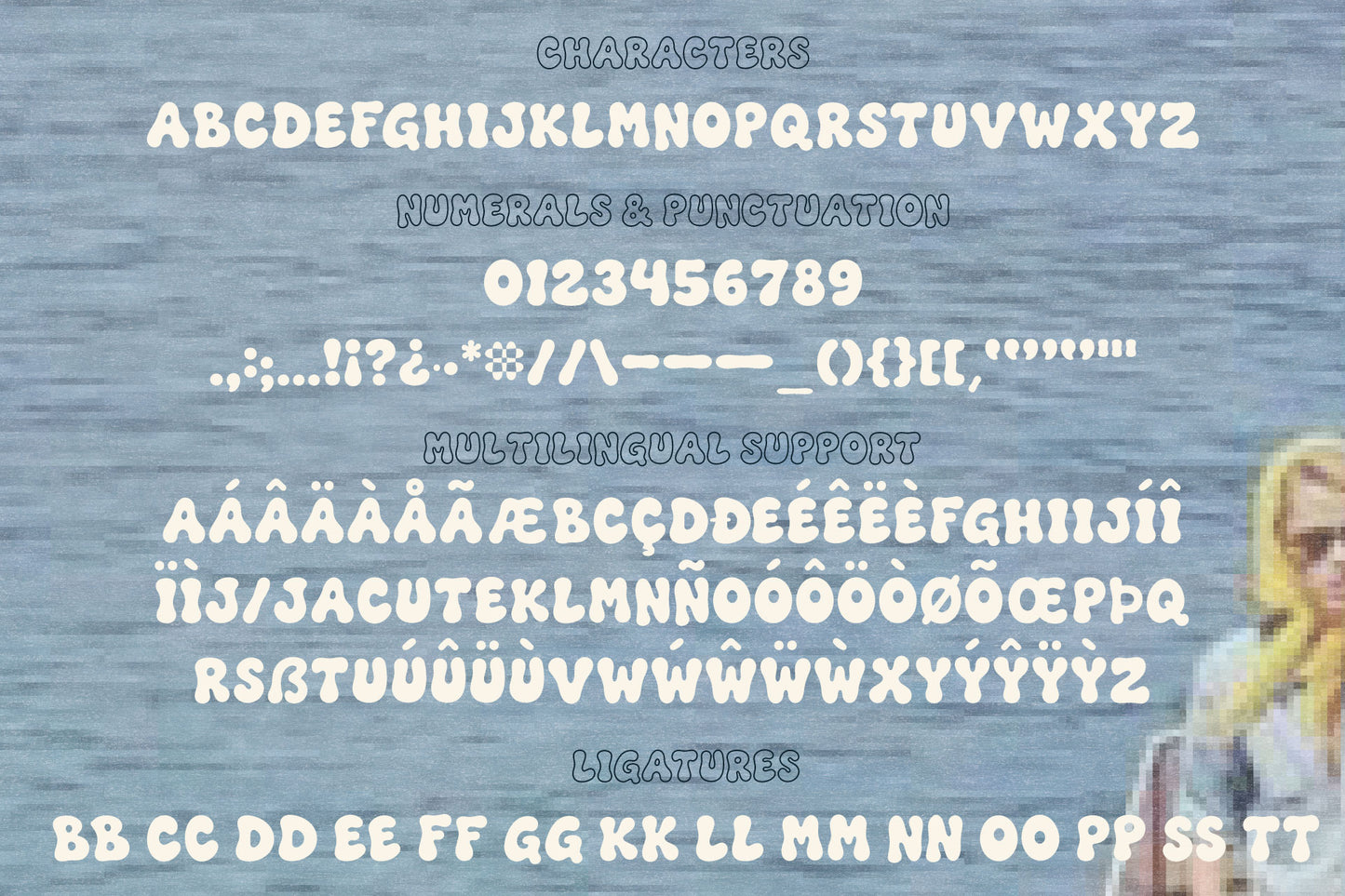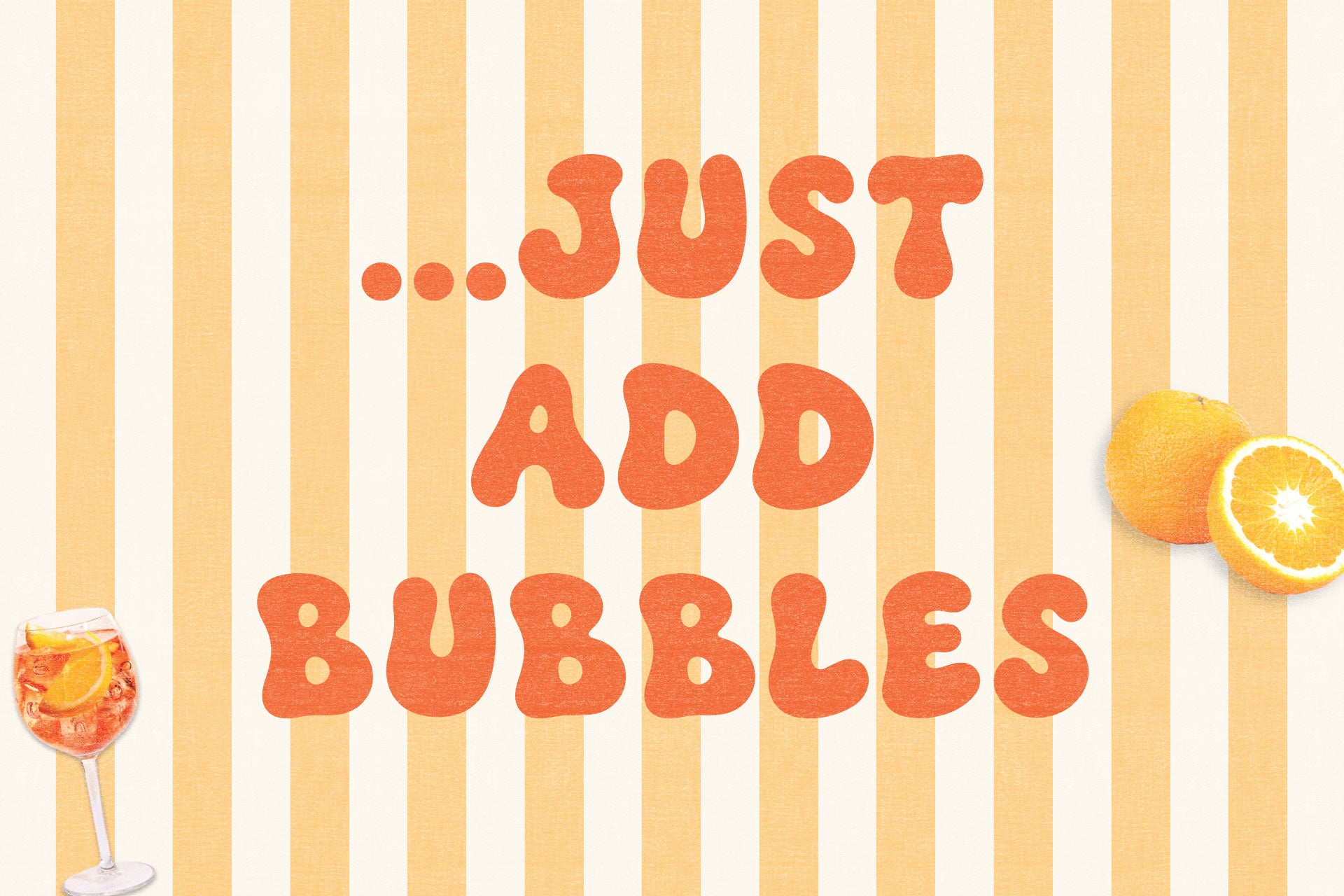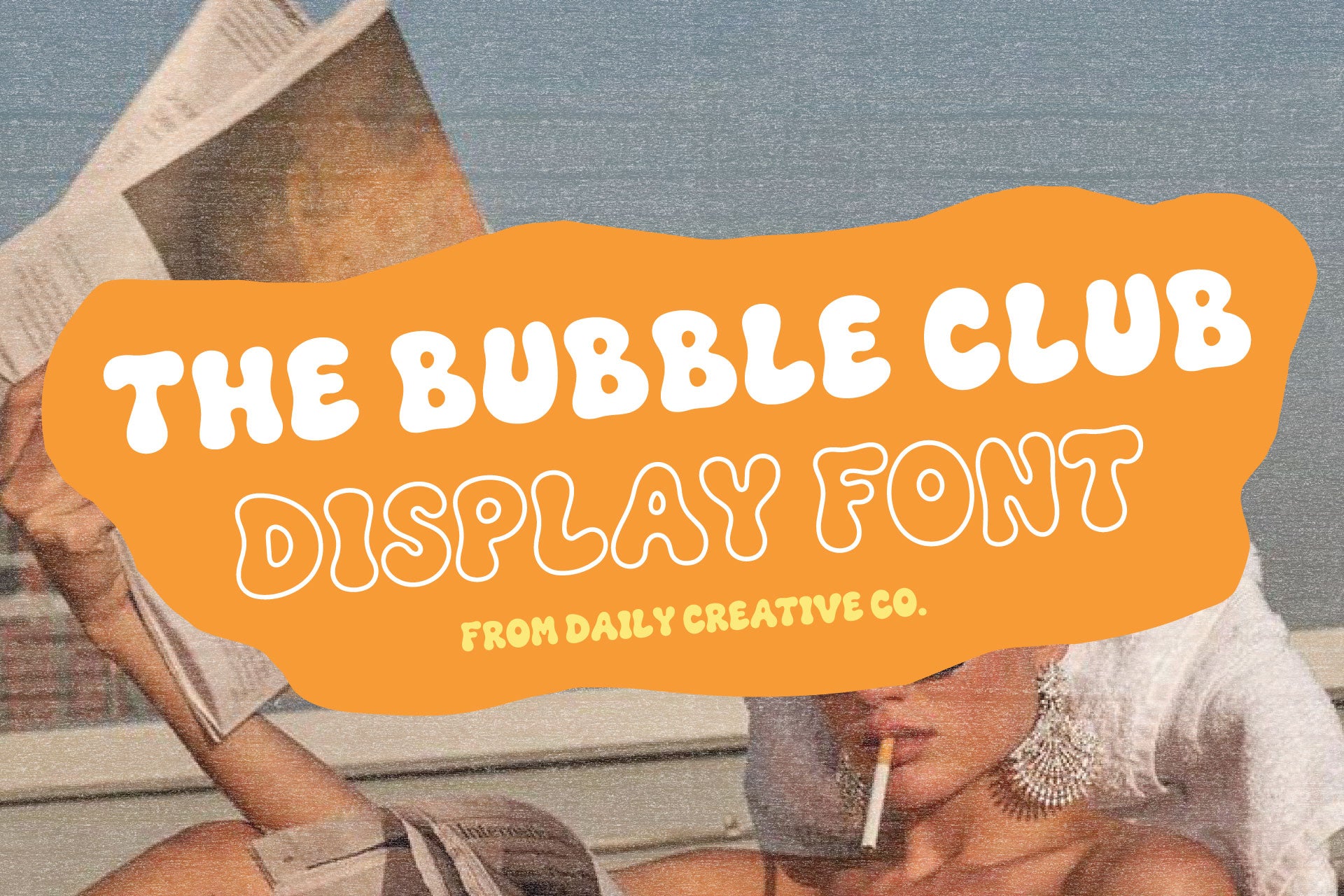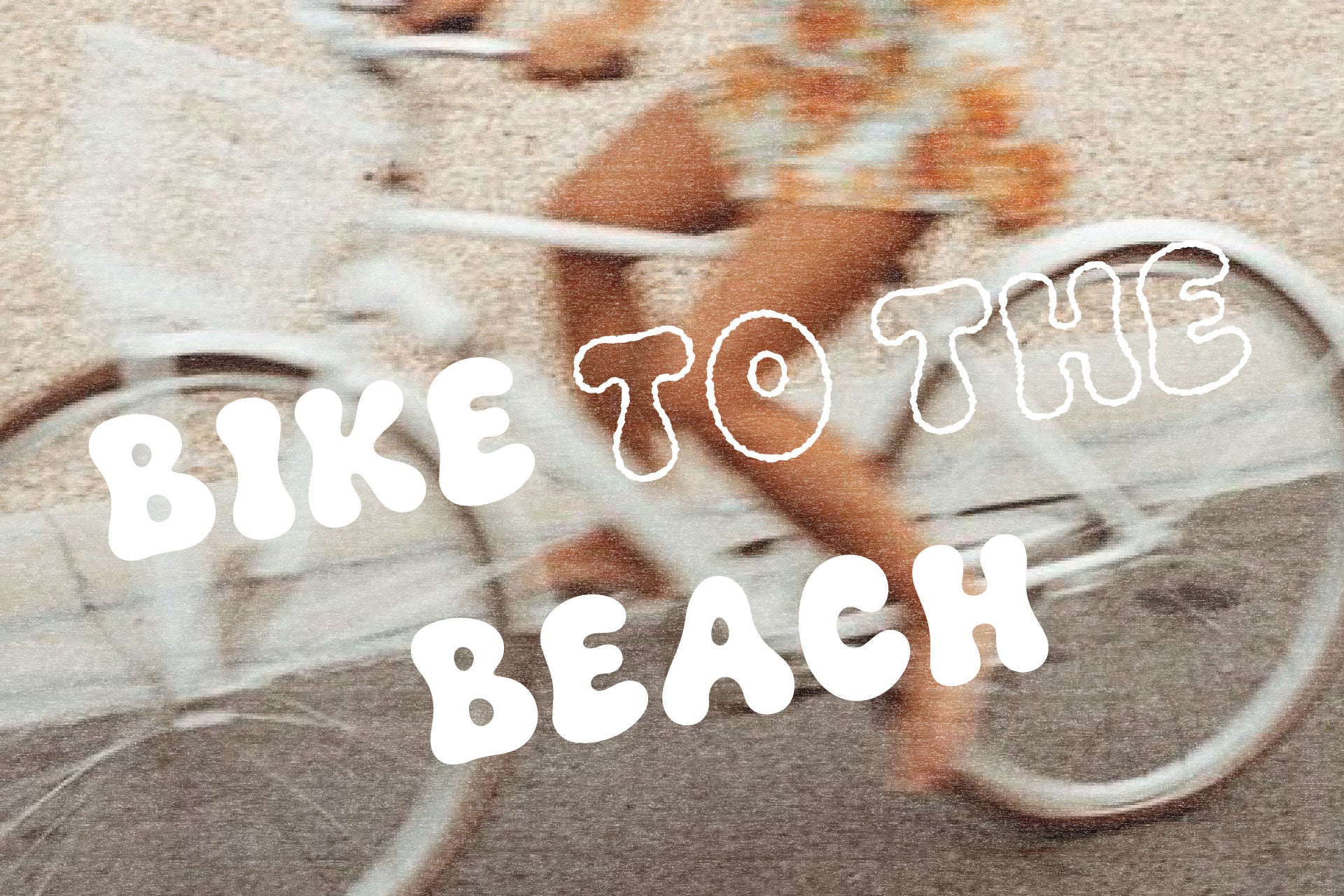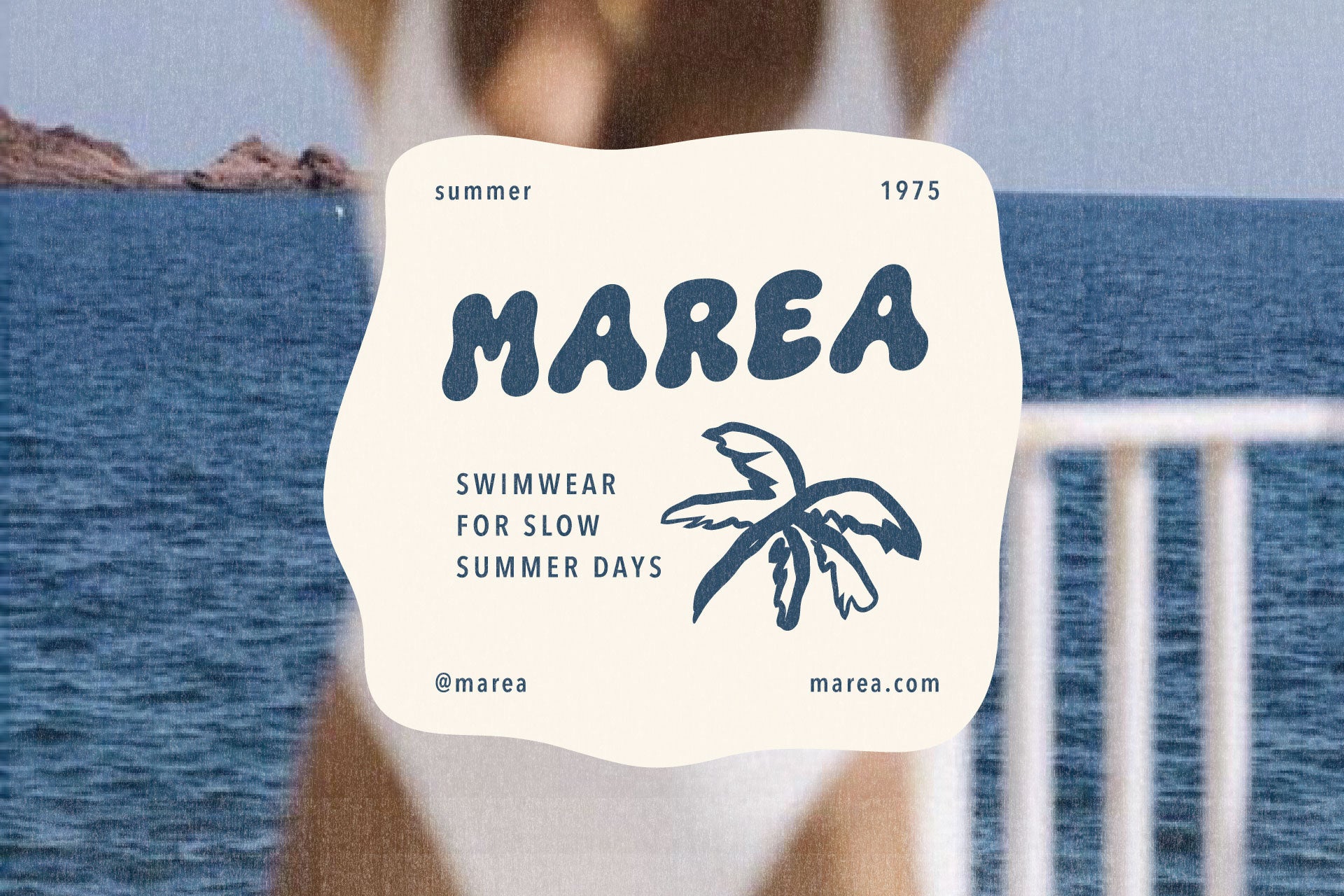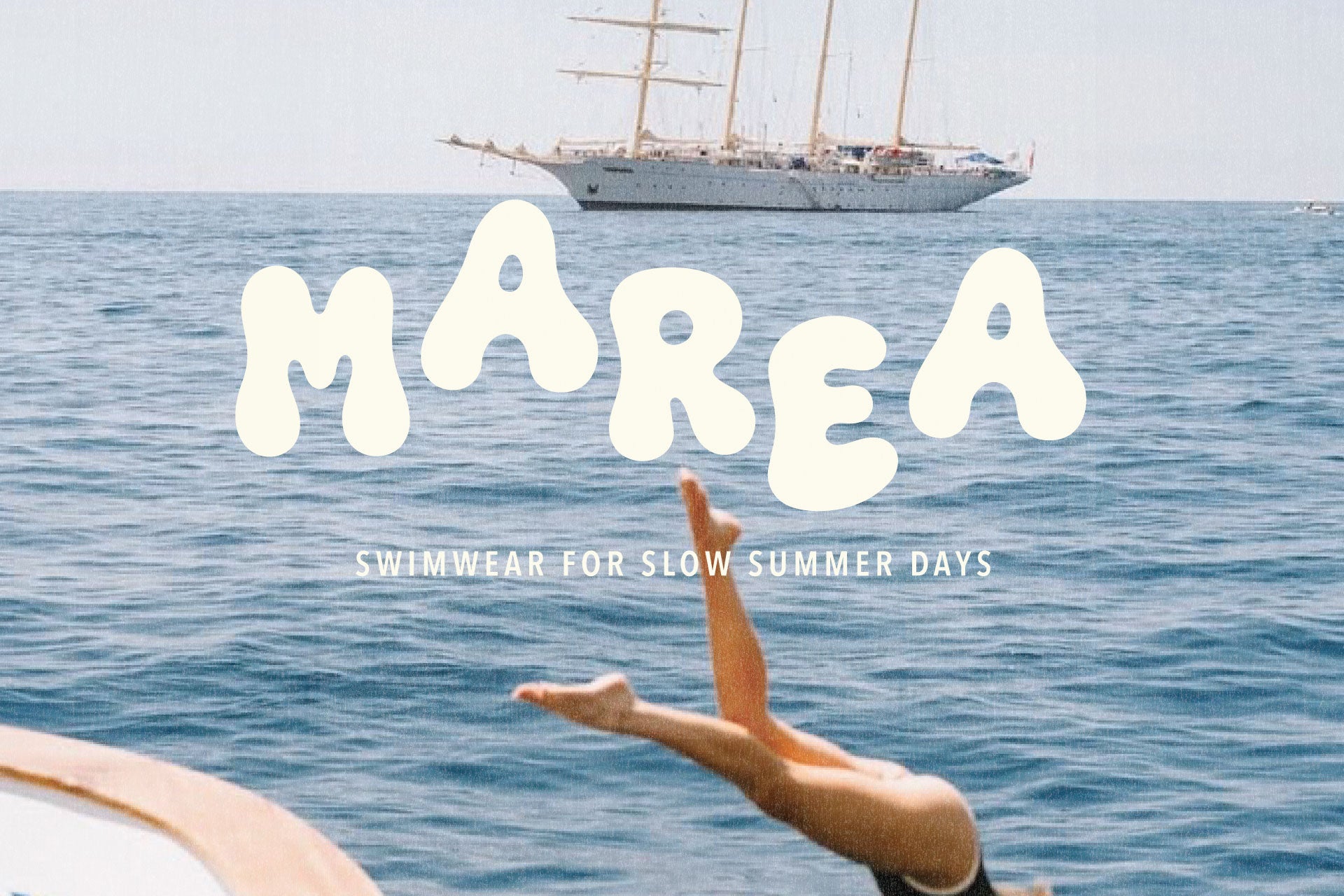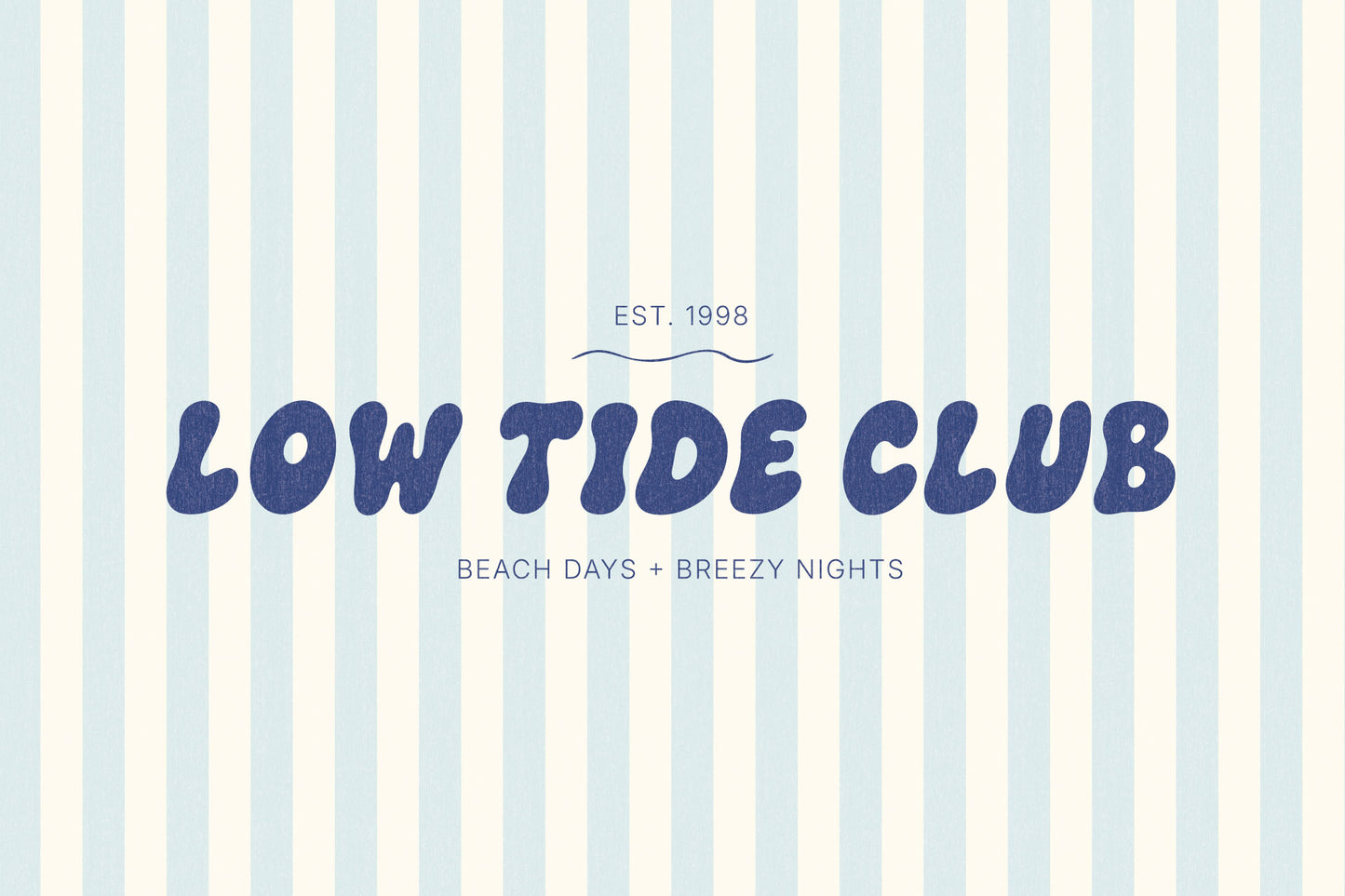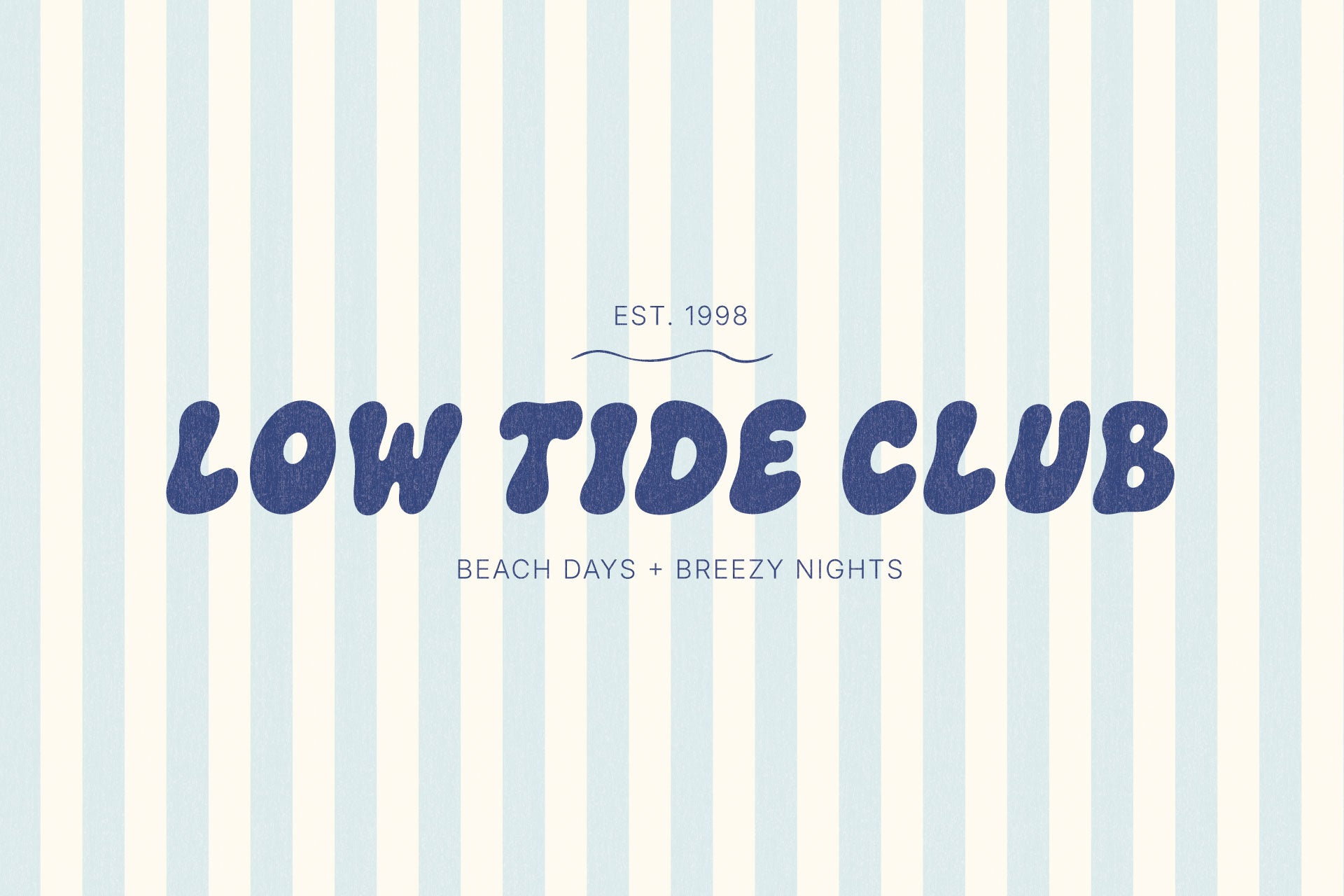
The Bubble Club Display Font Family
A bubbly, beachy, groovy display font family is made for sun-drenched designs, spritz-filled afternoons, vintage beach club graphics, playful packaging, and anything that needs a little extra fizz.
The Bubble Club is a bold all-caps display font with soft rounded letters, imperfect hand-drawn edges, and a nostalgic retro feel. It has that slightly wobbly, handmade charm that makes it feel warm, relaxed, and full of personality.
Inspired by summer postcards, beach umbrellas, pool club signage, Italian spritz hour, vintage vacation graphics, and bold 70s bubble lettering, this font was built to feel fun, fresh, and a little bit nostalgic.
It comes with multiple styles so you can mix, layer, and play!
Use the solid styles for bold logos, posters, packaging, merch, and headlines. Use the outline styles for layered type, retro layouts, beachy graphics, and playful accent moments. The rough styles add a little extra texture when you want things to feel handmade, printed, or perfectly imperfect.
Includes 6 font styles:
The Bubble Club Regular
The Bubble Club Outline
The Bubble Club Rough
The Bubble Club Outline Rough
The Bubble Club Italic
The Bubble Club Outline Italic
Uppercase letters
Numbers
Punctuation
Multilingual characters
Double-letter ligatures
Includes extended Latin character support for Albanian, Aymara, Basque, Danish, English, French, Galician, German, Haitian Creole, Irish, Italian, Luxembourgish, Norwegian Bokmål, Norwegian Nynorsk, Portuguese, Scottish Gaelic, Spanish, Swedish, and more.